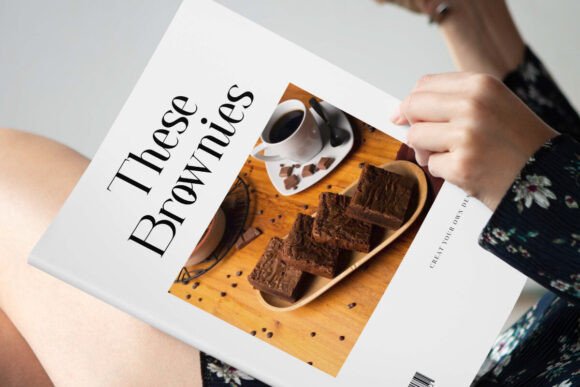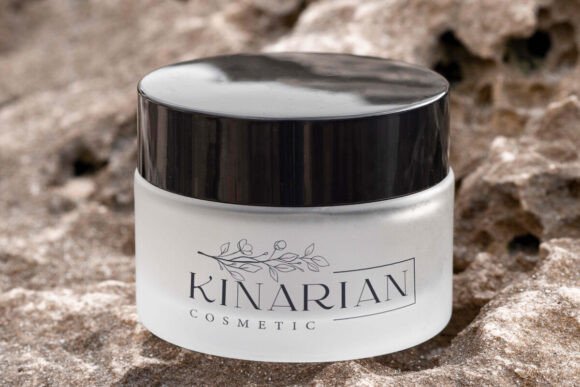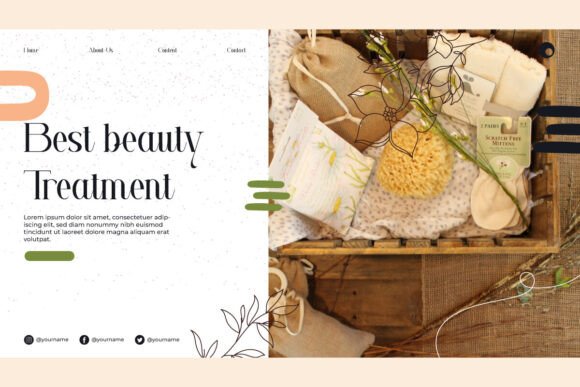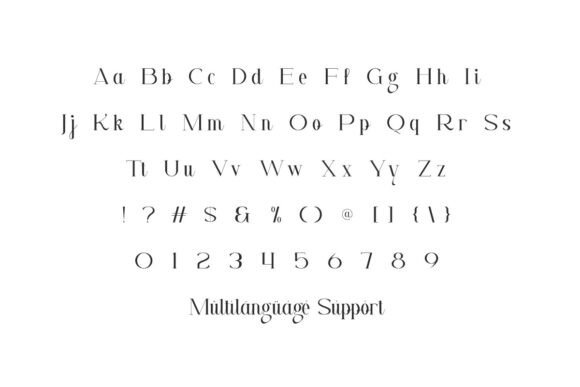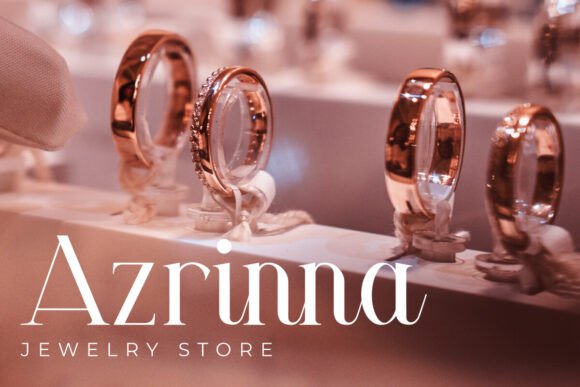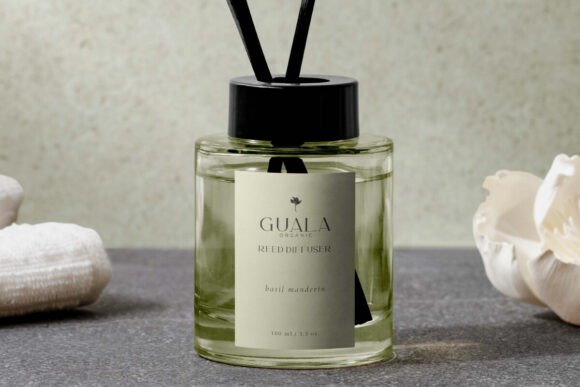
Introducing Adhitya Font: Elevate Your Brand with Elegance and Sophistication
In the world of design, typography plays a crucial role in conveying the message and aesthetic of a brand. A well-chosen font can make all the difference in creating a lasting impression on your audience. If you’re looking for a modern, stylish serif display font that exudes elegance and sophistication, look no further than Adhitya Font. In this article, we’ll explore the features and benefits of Adhitya Font, and how it can elevate your brand to new heights.
What is Adhitya Font?
Adhitya Font is a modern serif display font designed to add a touch of elegance to your brand. Its sleek lines, refined curves, and classic serif details make it perfect for a wide range of industries, including accessories, architecture, bakery and pastry, clothing brands, cooking classes, cosmetics, cafés, fashion design, film, furniture, interior design, jewelry, photography, printing, publishing, real estate, restaurants, schools, skincare, social media content, writing, and more.
Key Features of Adhitya Font
- Modern and Stylish: Adhitya Font boasts a contemporary design that will make your brand stand out from the crowd.
- Serif Elegance: The font’s serif details add a touch of sophistication and refinement, perfect for brands looking to convey luxury and elegance.
- Versatile: Adhitya Font is suitable for a wide range of industries and applications, from logos and branding to headings and titles.
- Highly Readable: The font’s clear and clean design ensures that your message is conveyed clearly and effectively.
Benefits of Using Adhitya Font
By incorporating Adhitya Font into your brand, you can enjoy a range of benefits, including:
- Enhanced Brand Image: Adhitya Font will give your brand a professional and polished look, helping to establish trust and credibility with your audience.
- Increased Legibility: The font’s clear design ensures that your message is conveyed clearly, making it easier for your audience to engage with your content.
- Unique and Memorable: Adhitya Font’s distinctive design will help your brand stand out from the competition and leave a lasting impression on your audience.
Who Can Benefit from Adhitya Font?
Adhitya Font is perfect for a wide range of designers, crafters, and businesses, including:
- Graphic Designers: Add a touch of elegance to your designs with Adhitya Font.
- Branding Experts: Help your clients establish a professional and polished brand image with Adhitya Font.
- Business Owners: Elevate your brand with Adhitya Font and establish a strong visual identity.
- Crafters and Artisans: Add a touch of sophistication to your craft projects and product labels with Adhitya Font.
How to Use Adhitya Font
In conclusion, Adhitya Font is a modern, stylish serif display font that can add a touch of elegance and sophistication to your brand. Its versatility, readability, and unique design make it perfect for a wide range of industries and applications. Whether you’re a designer, business owner, or crafter, Adhitya Font is a great choice for anyone looking to elevate their brand and establish a strong visual identity.